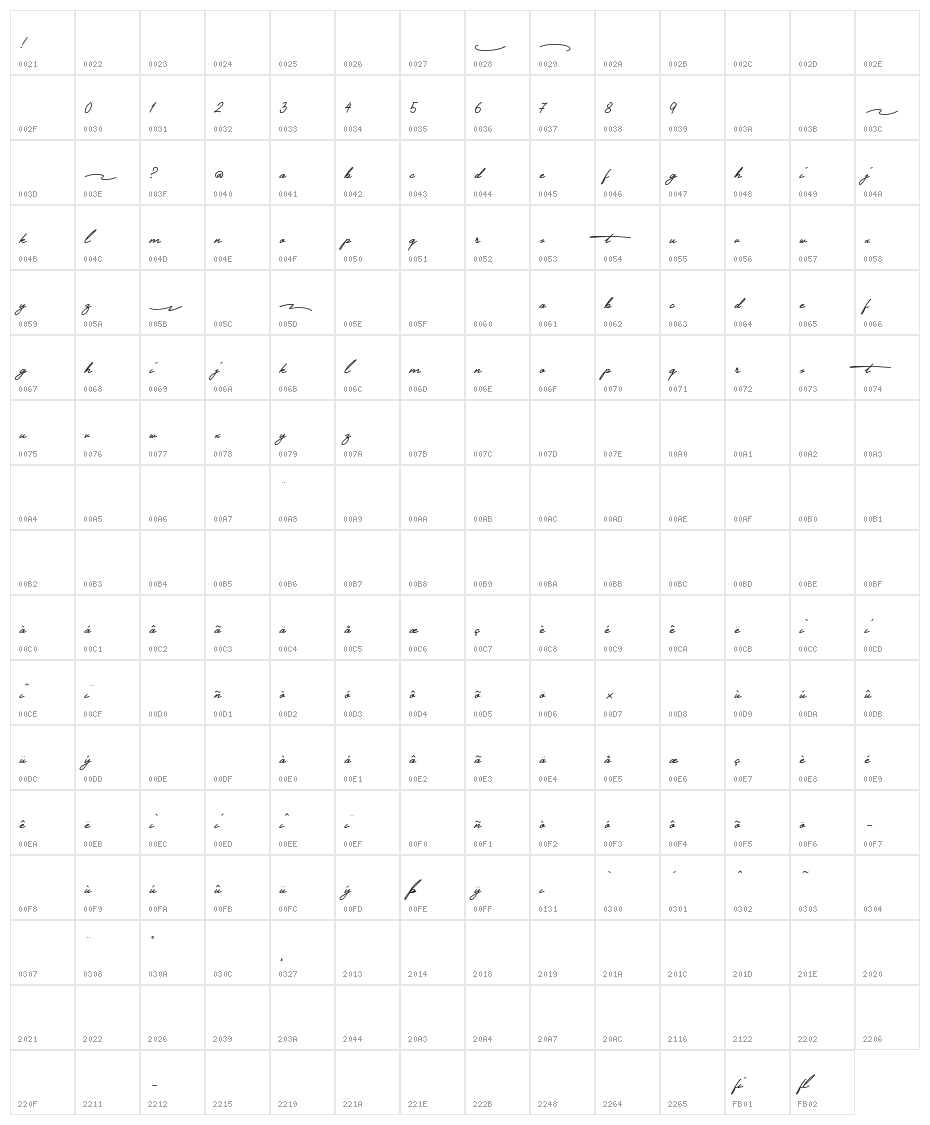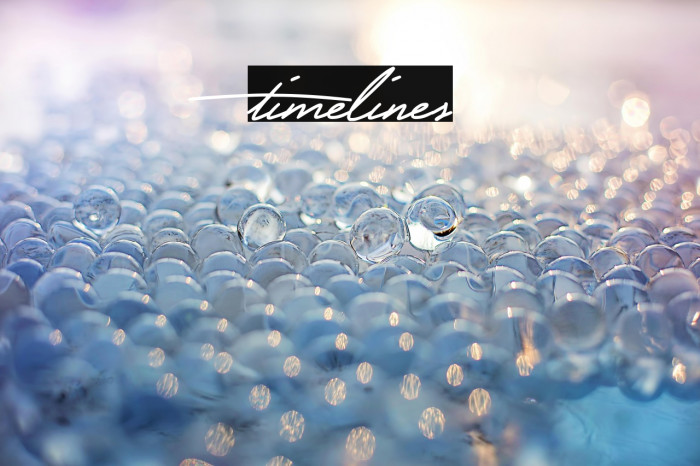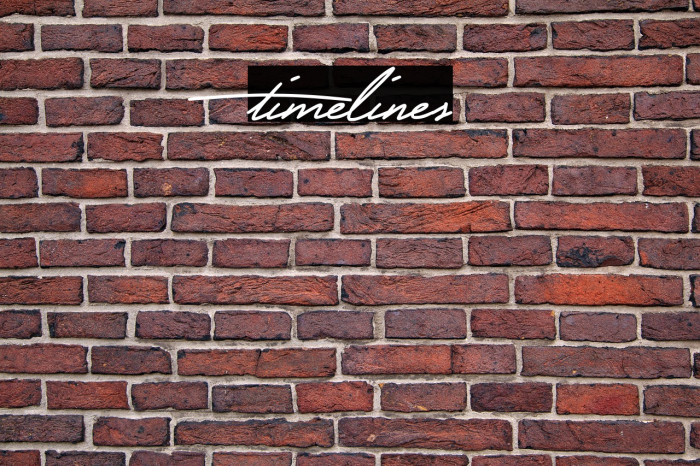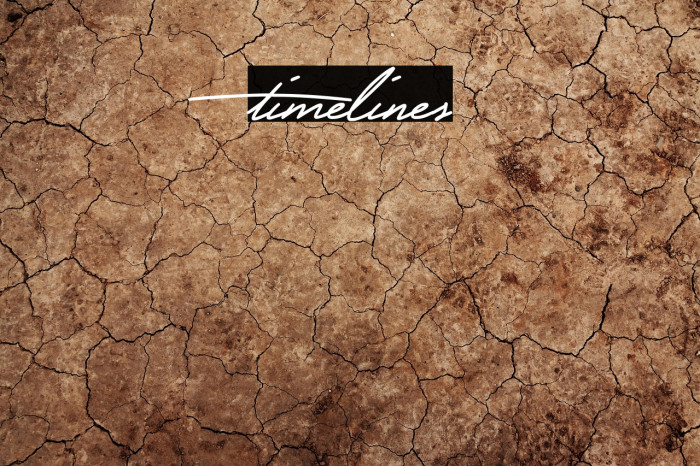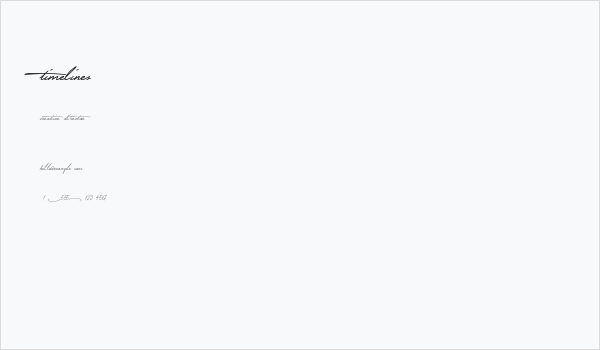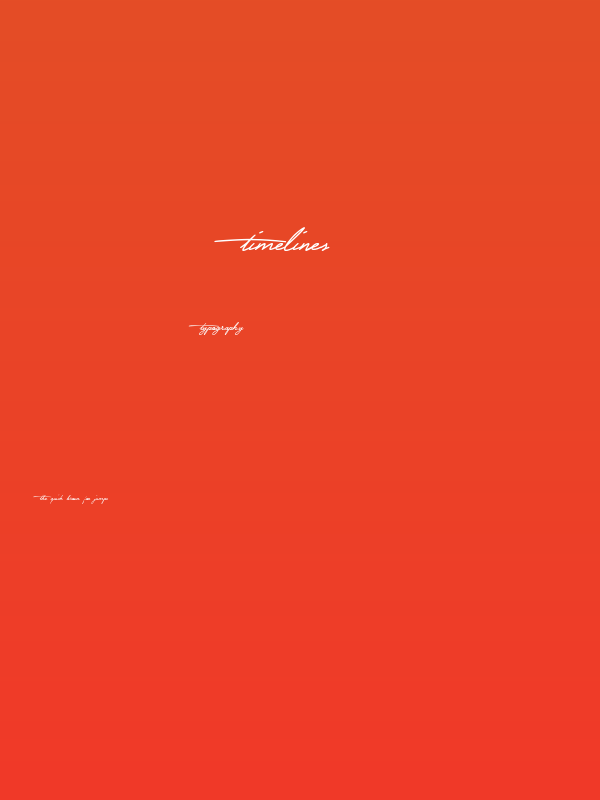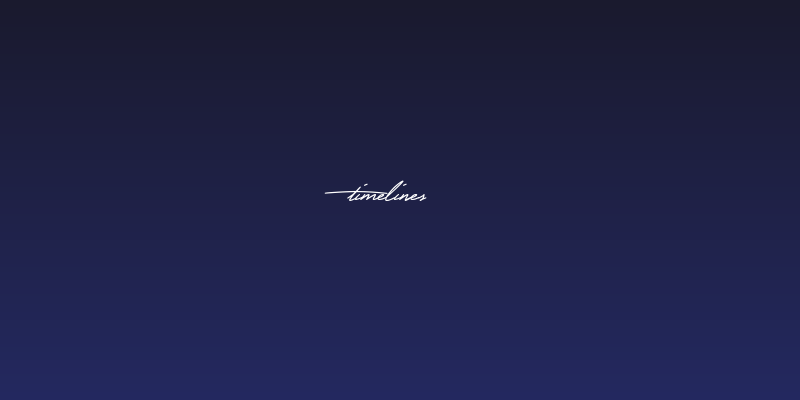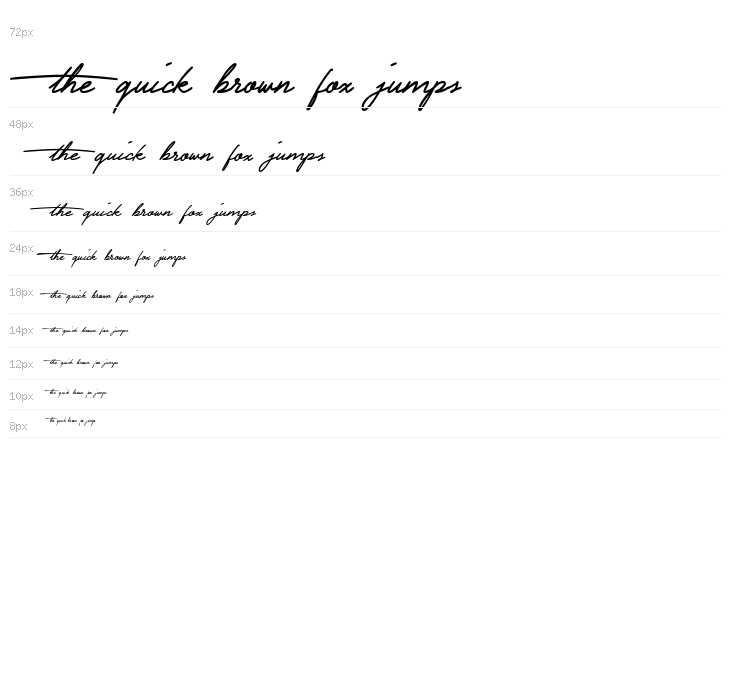
Timelines Font
| Stile generale | Elegant, Handwritten |
| Caso d'uso | Logos, Invitations, Artistic Projects |
| Progetti proposti | Ideal for wedding invitations, elegant branding, personal stationery, and artistic projects requiring a touch of sophistication. |